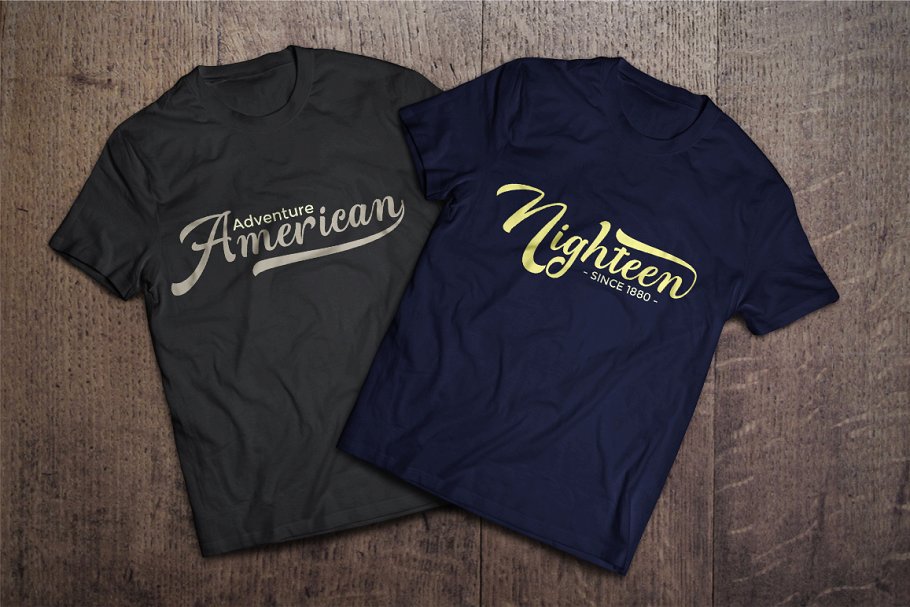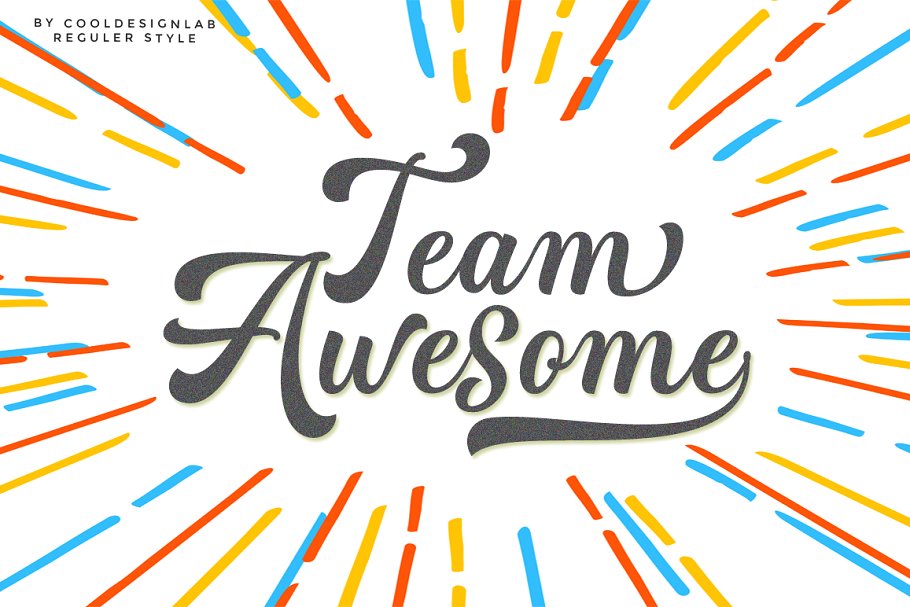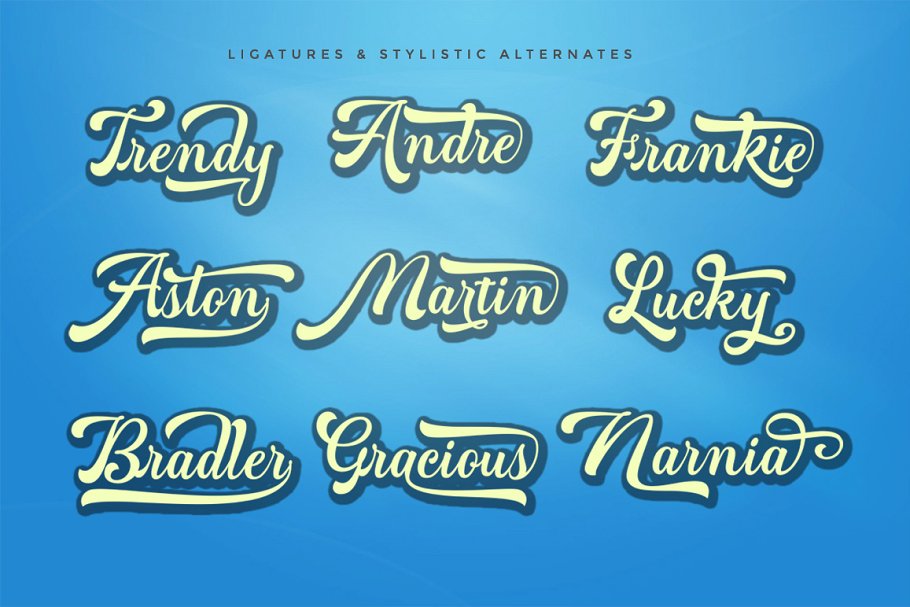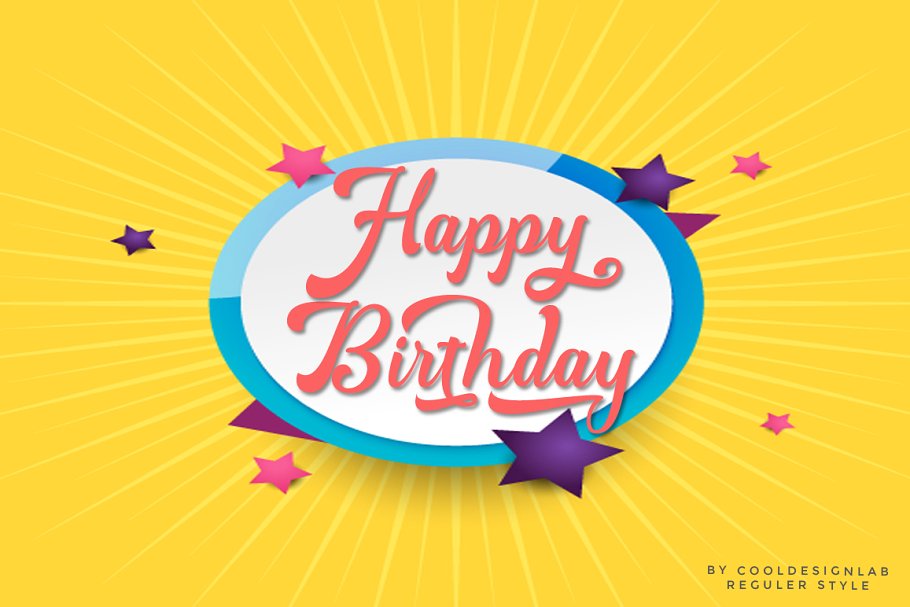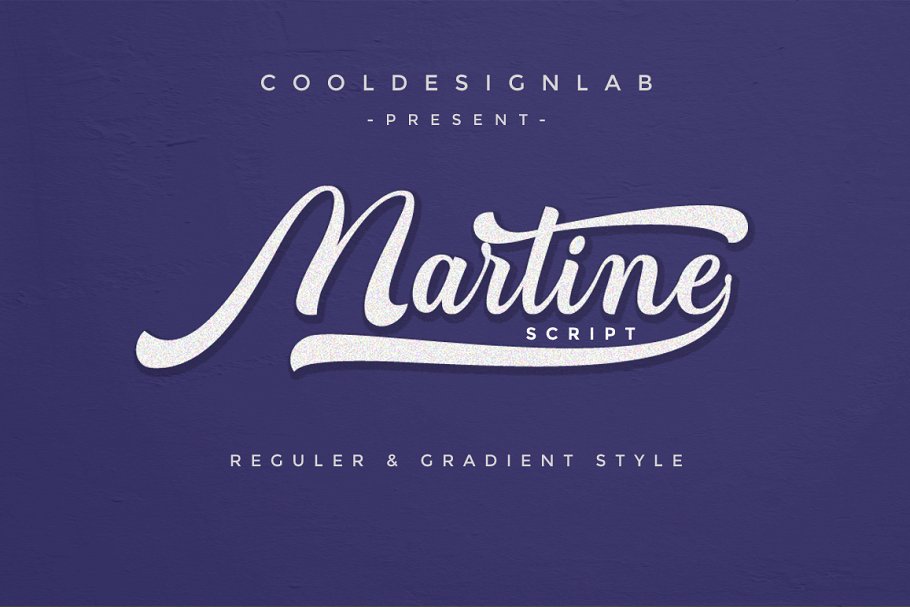
Martine Script Font
Hi Font Lovers! Proud to present Martine Script Bold with Regular and Gradient Style. This script is very cool to use in your everyday design. You can see from the scratches that give a realistic and modern style. The font looks sweet and full of the best characters. You can use this font in your various design products such as invitations, mockups, embosses, branding cards and more.